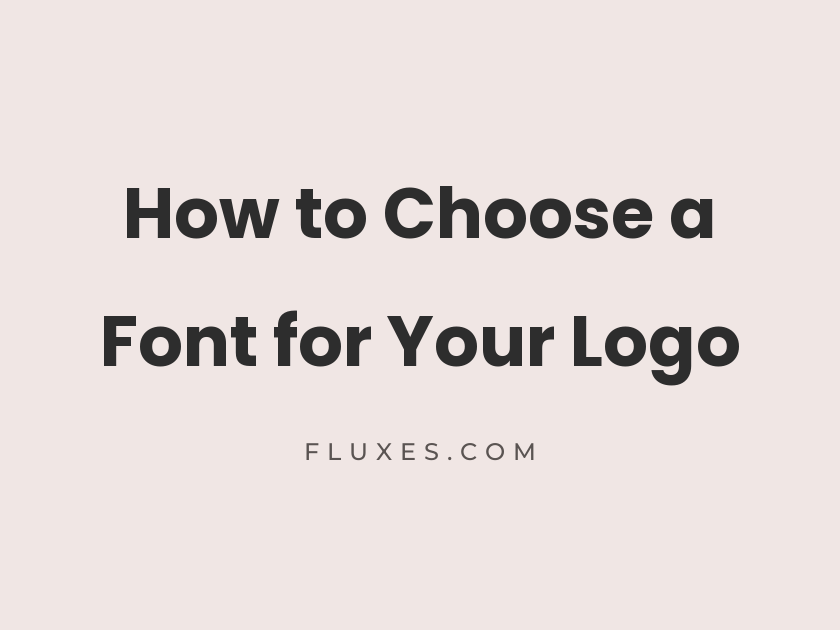
50 Font Ideas for Your Logo
Modern Geometric Sans-Serifs for Clean, Contemporary Brands
1. Poppins
Modern studio for modern makers
Built on near-perfect circles and even stroke widths, Poppins reads as friendly and current without tipping into anything trendy or dated. It is one of the most common logo fonts for startups and app brands right now, so pair it with a distinctive mark or color palette if you want your logotype to stand apart from the crowd.
2. Montserrat
Buenos Aires coffee, roasted daily
Montserrat was drawn from old Buenos Aires signage, and that geometric, slightly architectural feel still comes through in every letterform. It has become a default choice for a huge range of brands, from wellness studios to law firms, because the proportions are so evenly balanced that it never feels out of place. If you want the geometric warmth of Montserrat but need something a bit less ubiquitous, look at Jost or Outfit instead.
3. Raleway
Elegant systems for elegant brands
The thin, elongated letterforms give Raleway a fashion-forward, slightly editorial quality that suits beauty, interior design, and lifestyle logos particularly well. At heavier weights it firms up nicely for a wordmark; at lighter weights it works better as a tagline under a bolder mark.
4. Quicksand
Sweet treats made with care
Rounded terminals give Quicksand an approachable, almost toy-like warmth that suits bakeries, children’s brands, and casual food logos. It is friendly enough to feel welcoming without sliding into the overtly playful territory of a novelty font.
5. Josefin Sans
Vintage inspired, made for today
Josefin Sans borrows its narrow apertures and geometric bones from 1920s display type, giving it a retro-modern quality that works beautifully for boutique and design-studio logos. It sits comfortably next to a serif for a two-tier lockup.
6. Jost
Precision engineered brand identity
Jost is a free reinterpretation of the geometric sans tradition once associated with Futura, and it makes a genuinely solid alternative for anyone who wants that classic circular-o feel without a licensing fee. It suits architecture firms, product brands, and anything aiming for a confident, unfussy modernism.
7. Outfit
Launch your next big idea
Outfit is tight, even, and quietly confident, which makes it a favorite for SaaS and app logos that need to look crisp inside a small icon. It has enough personality to avoid feeling generic, but not so much that it competes with a logomark.
8. Space Grotesk
Software built for the future
Slightly quirky details in the lowercase letters give Space Grotesk more character than a typical grotesque, which is exactly why it has become a go-to for tech and developer-tool brands wanting to look sharp without looking cold.
9. Sora
Clarity for complex ideas
Sora balances geometric structure with softened corners, landing in a versatile middle ground that works equally well for a fintech dashboard logo or a design agency’s letterhead.
10. Manrope
Fast, focused, fully modern
Manrope is an open-source grotesque with tight spacing and a technical edge, well suited to logos for developer products, analytics platforms, and other brands that want to read as precise and efficient.
11. DM Sans
Simple systems, strong results
Originally designed for small-screen legibility, DM Sans holds up cleanly at logo scale on mobile app icons and favicons, which is precisely where many geometric sans-serifs start to blur.
12. Urbanist
City living, reimagined daily
Urbanist has a light, airy geometric structure that suits real estate, coworking, and lifestyle brands aiming for a minimal, design-forward identity.
13. Comfortaa
Community, kindness, and craft
Every curve in Comfortaa is rounded, giving it a soft, bubbly warmth that has made it popular for wellness, yoga, and community-brand logos. It can look a little informal for corporate work, so save it for brands actively chasing an approachable, human tone.
Humanist and Versatile Sans-Serifs for All-Purpose Branding
1. Work Sans
Honest work, honest pricing
Work Sans was optimized for readability at text sizes, which happens to translate into excellent clarity at logo scale too. It has a plain, trustworthy character that suits service businesses, from plumbers to consultancies, where legibility matters more than flash.
2. Nunito Sans
Straightforward solutions for growing teams
The rounded terminals of Nunito Sans soften what is otherwise a very rational, businesslike letterform, making it a safe and versatile pick for a wordmark that needs to feel both professional and approachable.
3. Mulish
Growing businesses, built to last
Mulish is a low-contrast, minimalist sans that disappears into whatever mood you build around it, which makes it dependable for a secondary logotype or tagline rather than a showstopper on its own.
Favor one strong display or script font paired with a simpler sans-serif for supporting text, rather than combining two loud personalities in the same mark.
If a font feels extremely popular, consider whether that recognizability works for or against your brand’s need to stand apart from competitors using the same free typeface.
There is genuine range within Google Fonts for logo design, from severe geometric sans-serifs to hand-lettered scripts, which means the right typeface for your brand is very likely already free to download and test today.